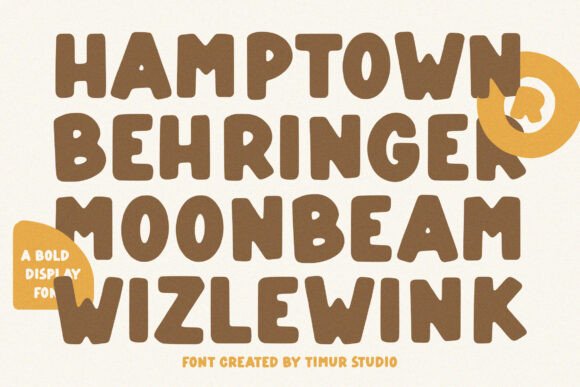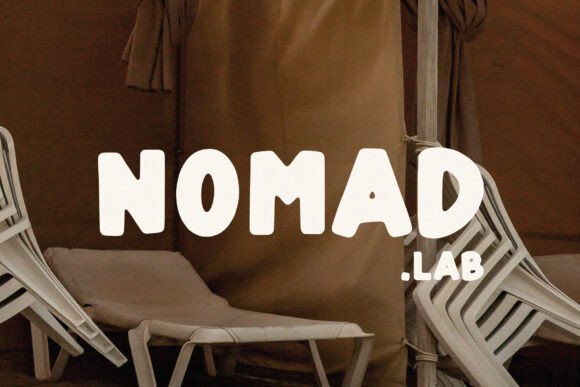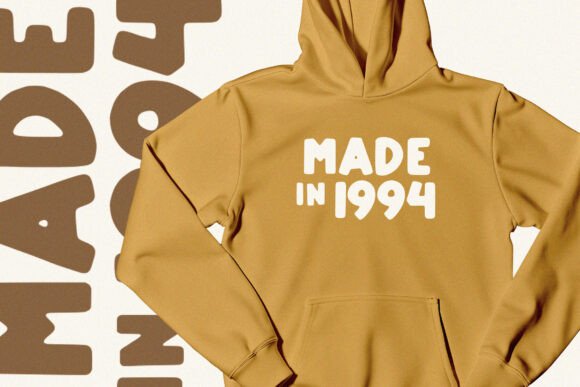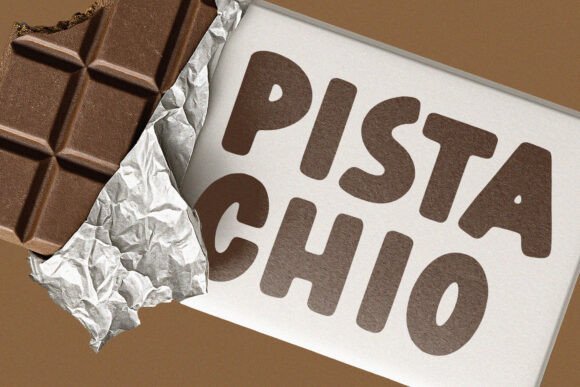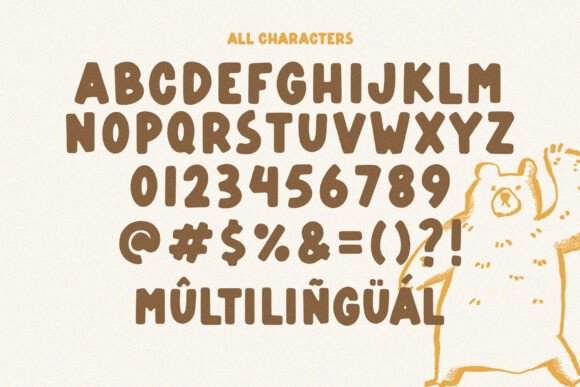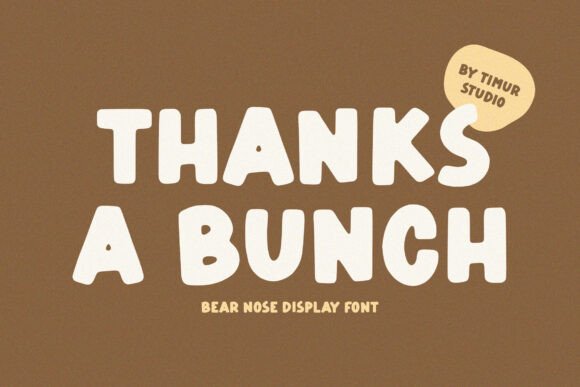
Bear Nose Font: Unleash the Wild Side of Your Designs
In the world of typography, fonts play a crucial role in conveying the tone and personality of a brand or design. For designers and crafters looking to add a touch of rugged charm and playfulness to their work, the Bear Nose font is an excellent choice. This bold, display handwritten font combines thick strokes and expressive curves to capture the raw energy of hand-drawn lettering, making it perfect for eye-catching headlines, posters, and creative branding.
The Characteristics of Bear Nose Font
Bear Nose font is a unique and captivating typeface that boasts several distinctive characteristics. Its bold and thick strokes give it a rugged, adventurous feel, while its expressive curves add a touch of playfulness and whimsy. The font’s hand-drawn nature makes it feel organic and authentic, perfect for designs that require a personal touch.
Uses of Bear Nose Font
The versatility of Bear Nose font makes it suitable for a wide range of design applications. Some of the most popular uses of this font include:
- Headlines and Titles: The bold and attention-grabbing nature of Bear Nose font makes it perfect for headlines and titles that require a strong impact.
- Posters and Flyers: The font’s rugged charm and playfulness make it an excellent choice for posters and flyers that need to stand out.
- Branding and Logo Design: Bear Nose font can add a touch of wild character to any brand or logo, making it perfect for companies that want to convey a sense of adventure and playfulness.
- Signage and Displays: The font’s bold and easy-to-read nature makes it suitable for signage and displays that require clear and attention-grabbing lettering.
Why Choose Bear Nose Font?
With so many fonts available, why choose Bear Nose font for your designs? Here are a few compelling reasons:
- Unique and Memorable: Bear Nose font is a one-of-a-kind typeface that can help your designs stand out from the crowd.
- Versatile: The font’s versatility makes it suitable for a wide range of design applications, from headlines and posters to branding and signage.
- Easy to Read: Despite its bold and playful nature, Bear Nose font is easy to read, making it perfect for designs that require clear communication.
- Customizable: The font’s hand-drawn nature makes it easy to customize and modify to fit your design needs.
Tips for Using Bear Nose Font
To get the most out of Bear Nose font, here are a few tips to keep in mind:
- Use it Boldly: Bear Nose font is designed to make a statement, so don’t be afraid to use it boldly and prominently in your designs.
- Experiment with Colors: The font’s rugged charm and playfulness make it perfect for experimenting with bold and bright colors.
- Pair it with Other Fonts: Bear Nose font can be paired with other fonts to create a unique and visually appealing contrast.
- Keep it Simple: Despite its bold nature, Bear Nose font can be overpowering if used excessively. Keep your designs simple and focused to get the most out of the font.
Bear Nose font is a bold, display handwritten font that combines rugged charm with playfulness. Its unique characteristics, versatility, and ease of use make it an excellent choice for designers and crafters looking to add a touch of wild character to their work. Whether you’re creating headlines, posters, branding, or signage, Bear Nose font is sure to make a statement and leave a lasting impression.